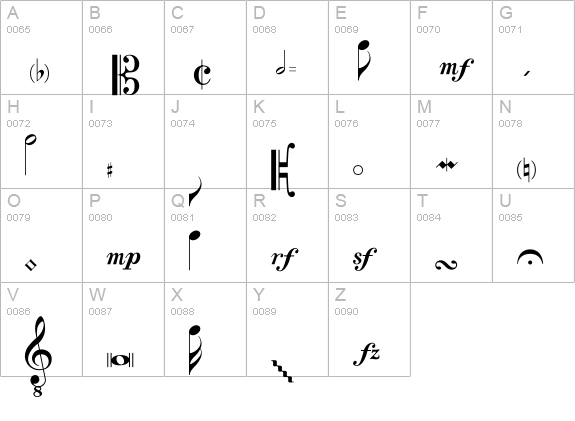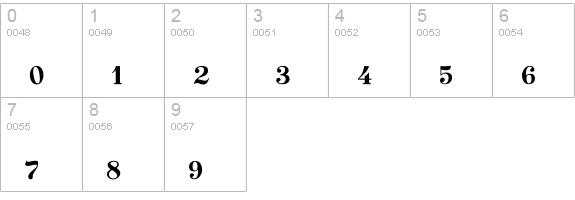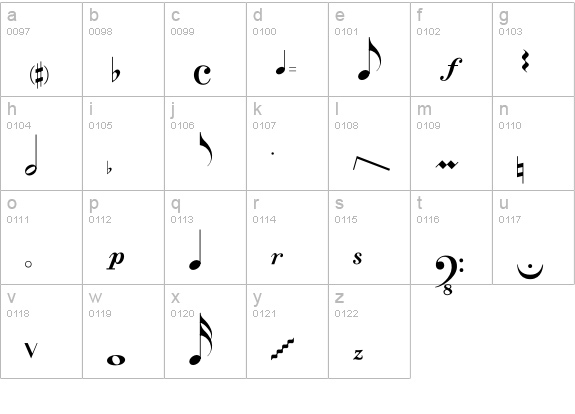
GraceNotes Font Details
GraceNotes font is a beautiful and elegant typeface that exudes sophistication and charm. With its delicate curves and graceful lines, this font is perfect for adding a touch of elegance to any project. Whether you are designing invitations, creating branding materials, or crafting stunning graphics, GraceNotes font will surely make your work stand out. The best part about GraceNotes font is that it is completely free to download at FontsMarket.com. Yes, you heard that right - this exquisite font can be yours at no cost at all. So go ahead and elevate your designs with the timeless beauty of GraceNotes font today!